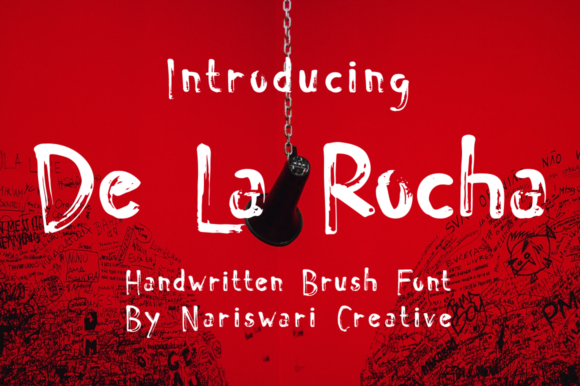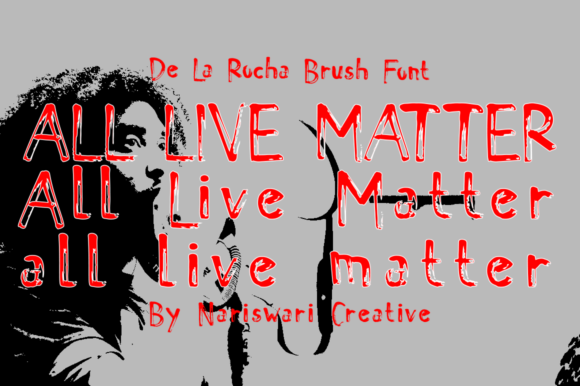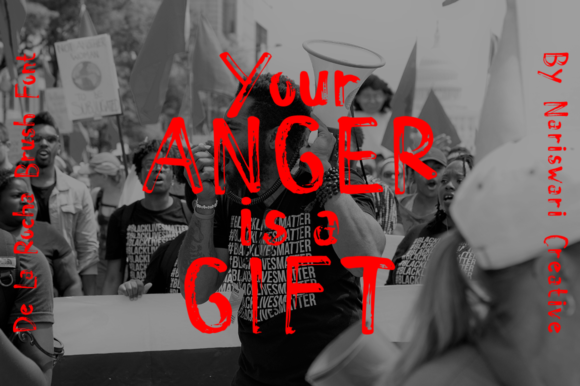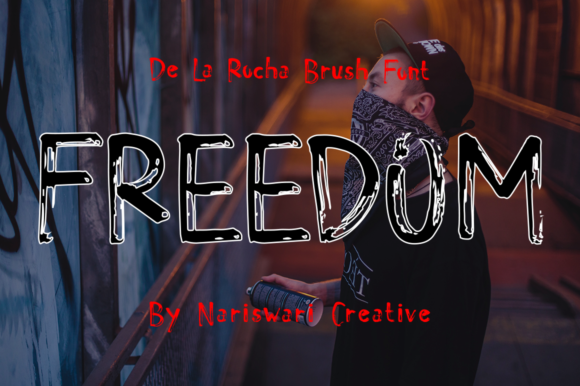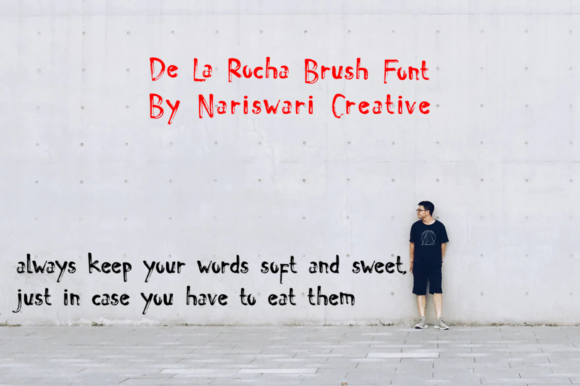
De La Rocha Font
About De La Rocha Font
De La Rocha is a simple and unique handwritten font. Its natural and neat style makes it incredibly fitting to a large pool of designs. The only limit is your imagination!